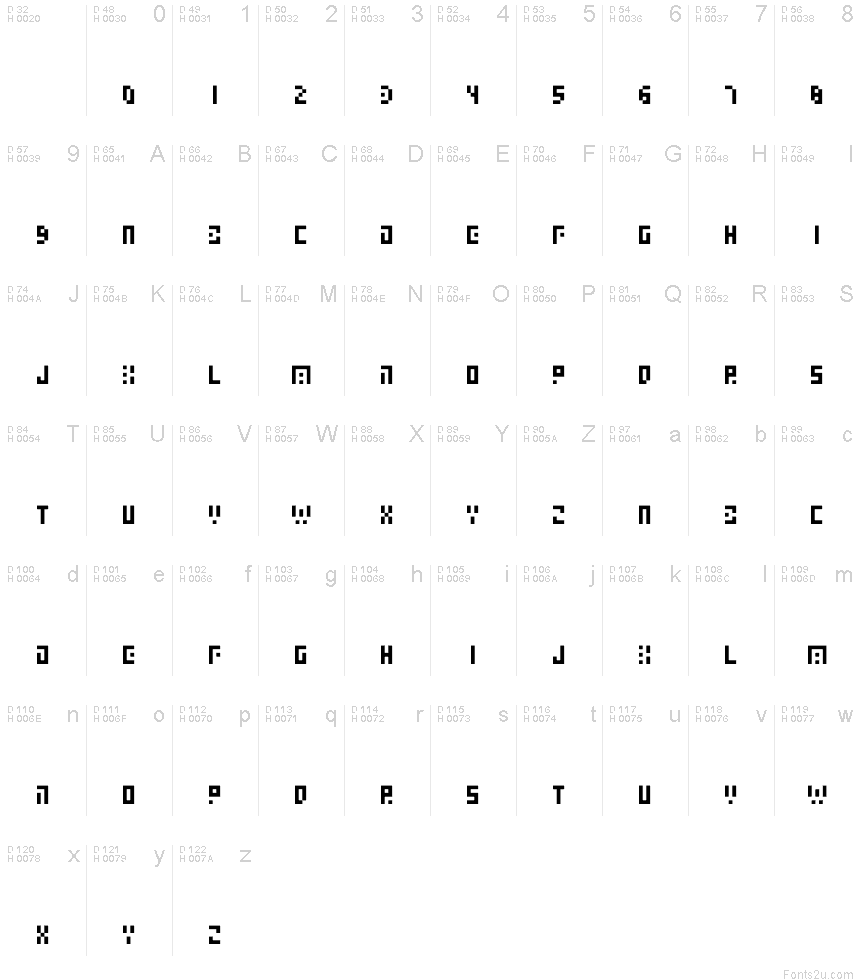
eLab
Elab font is a free techno display typeface with a bold, blocky grid that feels ripped from an 8-bit circuit board. Every letter is carved into chunky square modules, creating a rhythmic, almost maze-like texture that reads as both text and pattern. The tight right angles and hard corners give it a mechanical, synthesized voice that snaps against the page or screen.
Using Elab, you get letterforms that lock together like digital bricks, making headlines and short words feel dense, futuristic, and iconic. This free font shines on game titles, sci‑fi posters, electronic music covers, tech event branding, glitch art, and bold logo marks. Keep it big and spaced slightly loose for maximum legibility, and pair Elab with a clean geometric sans for supporting text to keep the layout sharp and readable.
Font for the 'Elab'-Collaboration, a student music project.